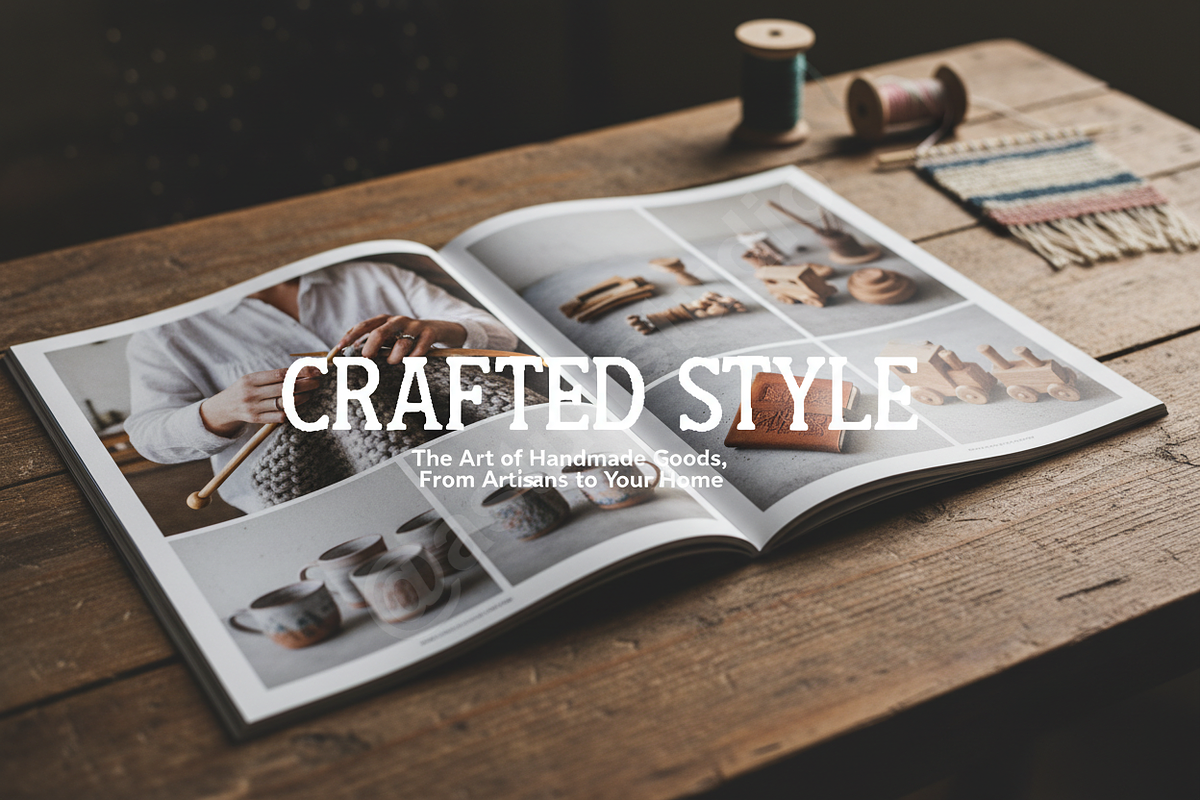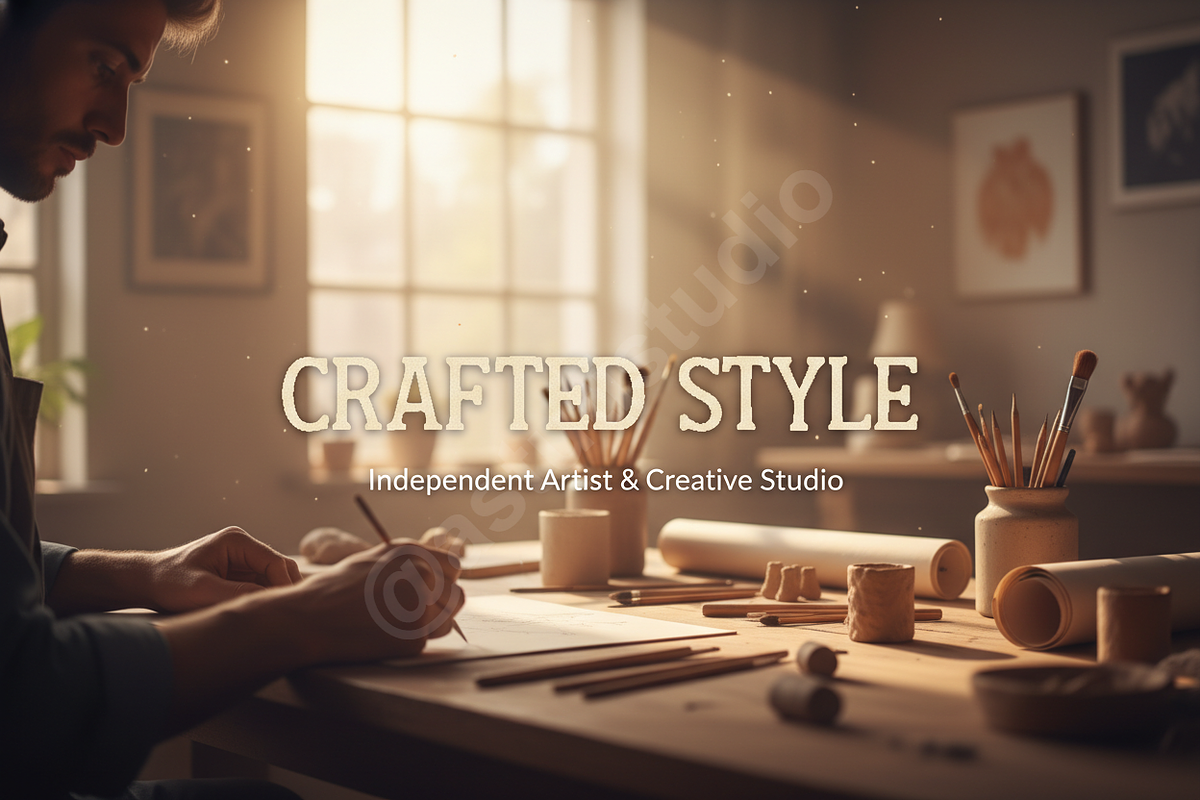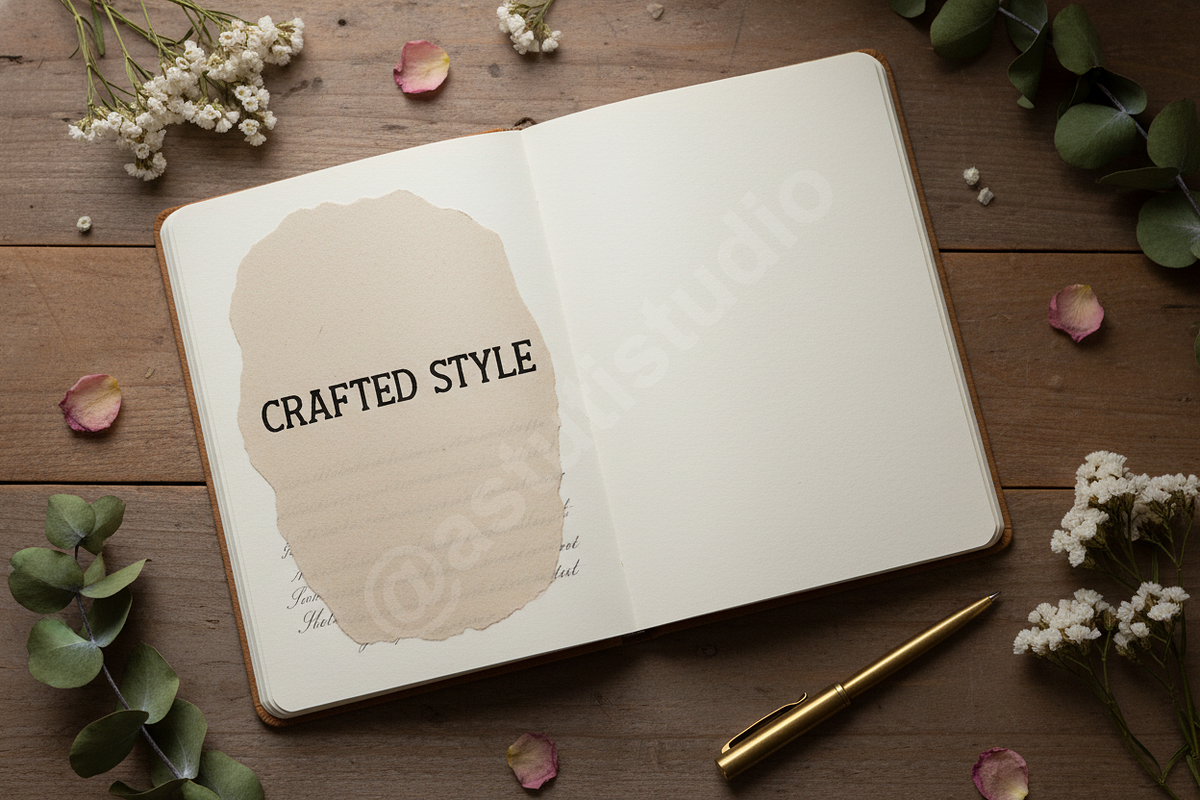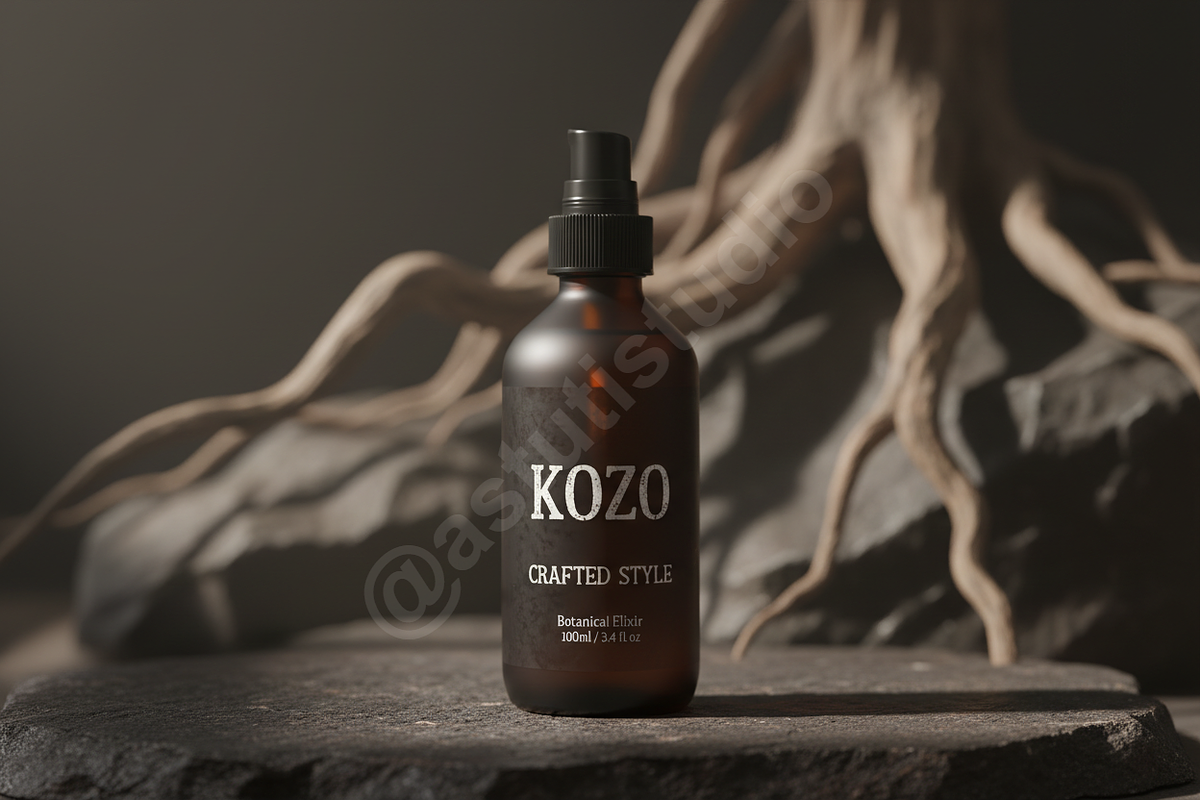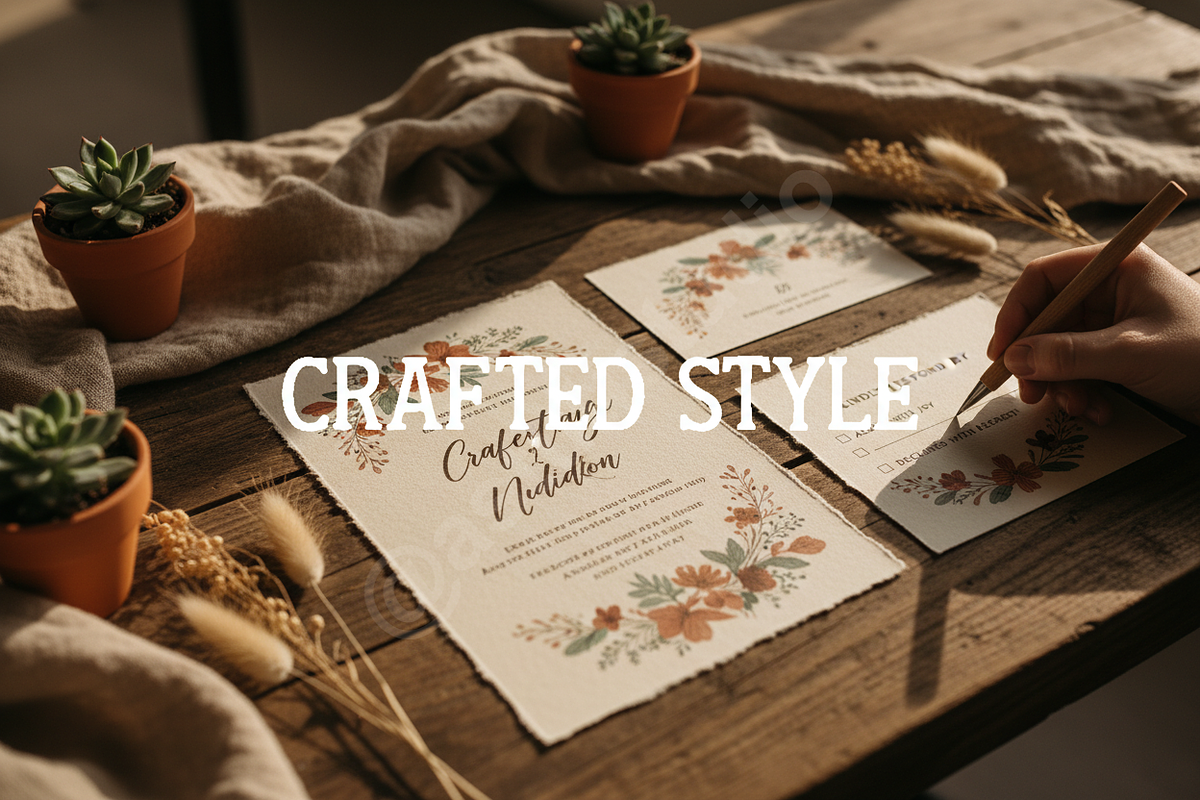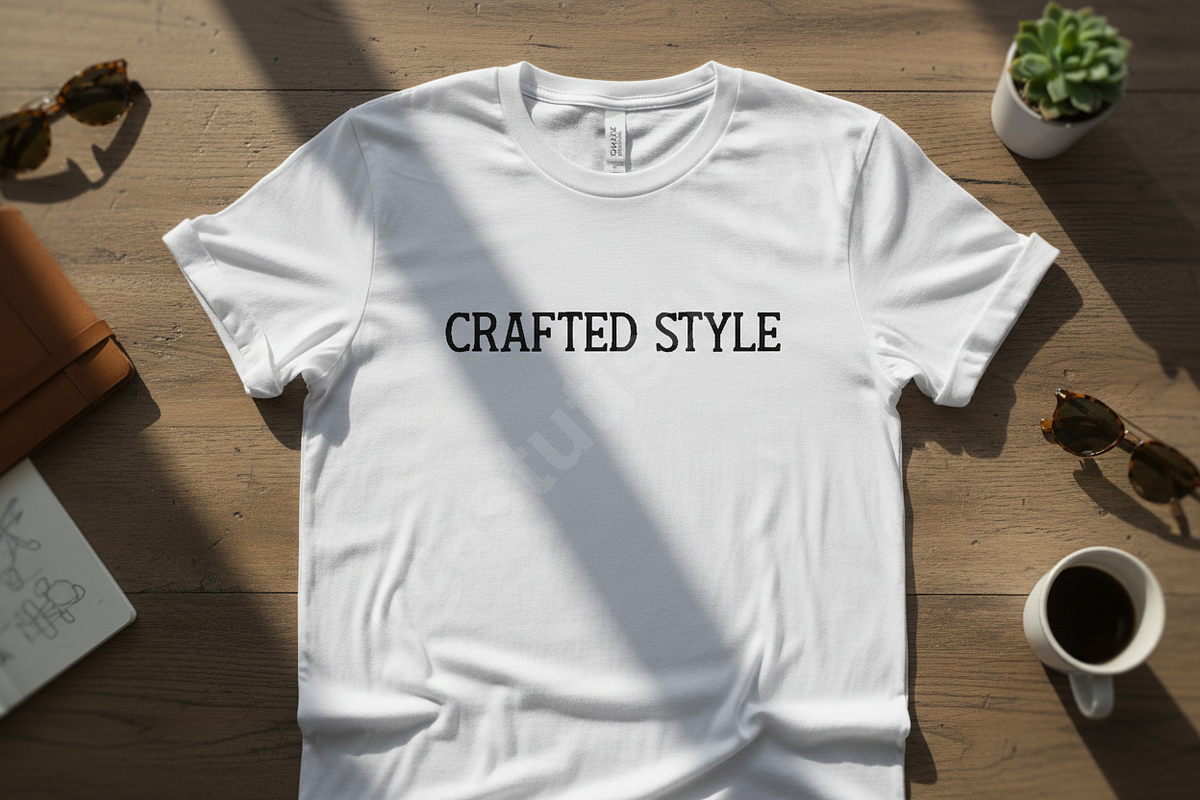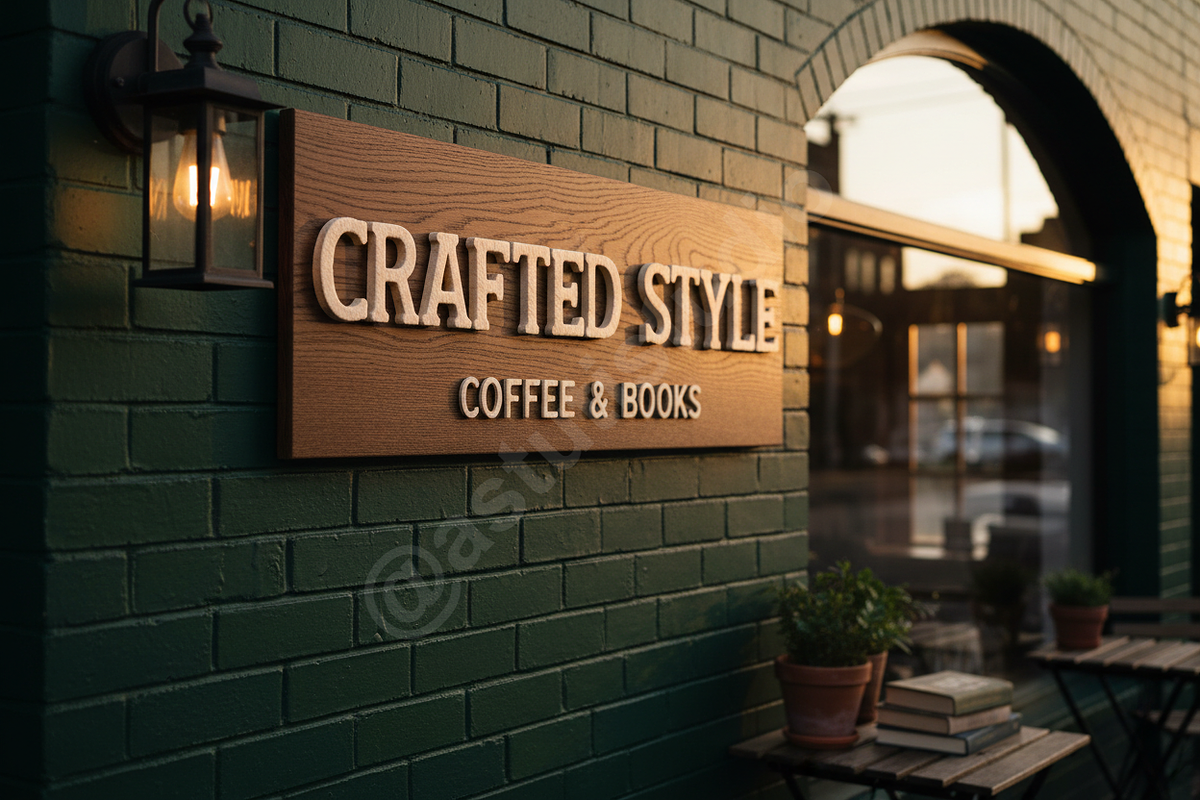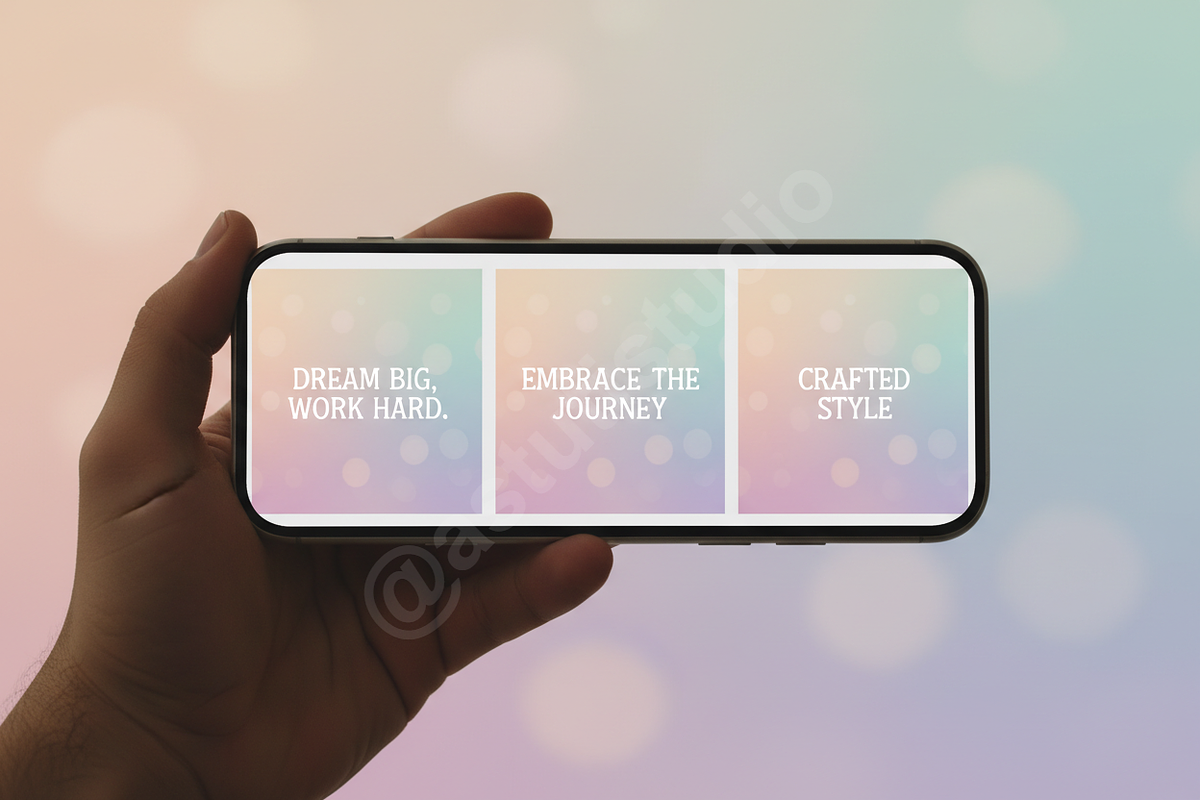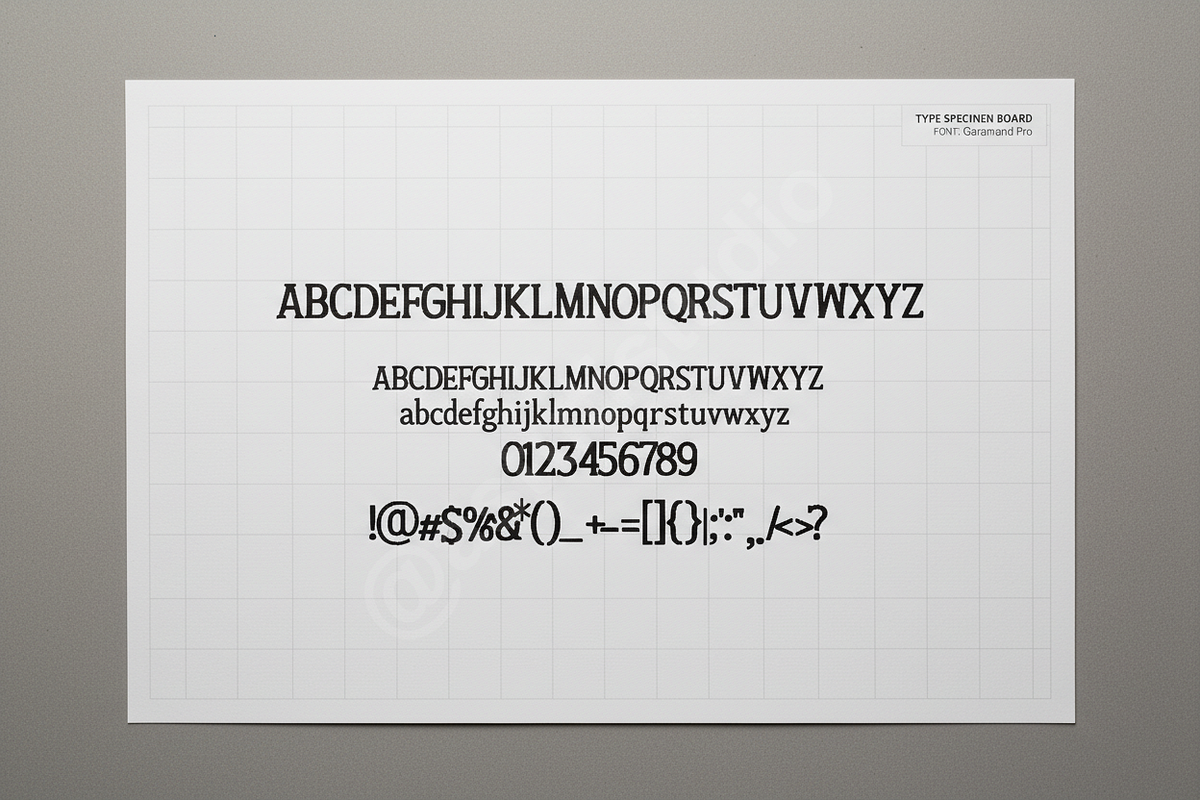
Kozo | Modern Elegant Serif Typeface
Introduction Kozo is a sophisticated and minimalist serif typeface designed for the modern aesthetic. Inspired by the clean lines of contemporary Japanese design, Kozo balances high-contrast strokes with refined curves to create a timeless look. It is the perfect choice for high-end luxury branding, editorial layouts, and elevated social media content. Whether you are crafting a high-fashion magazine or a boutique brand identity, Kozo provides an air of effortless luxury.
- Clean, high-contrast serif design
- Optimized for both display and body text
- Extensive ligature support for unique typography
- Comprehensive multilingual character set
- Perfectly suited for fashion, jewelry, and lifestyle brands
- Full set of uppercase and lowercase letters
- Standard ligatures and discretionary alternates